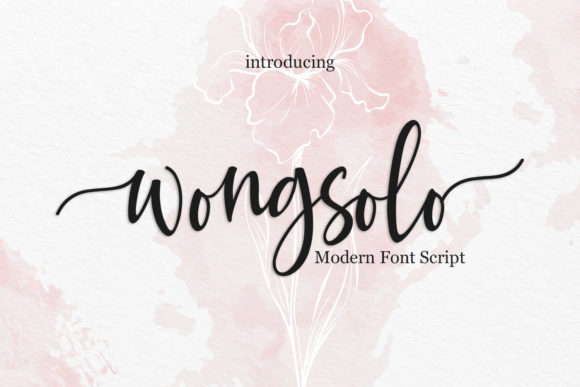
Prepare to be captivated by Wongsolo, a mesmerizing script font family that radiates an aura of romance and grace. This exceptional creation from the talented Belovestudio is specifically crafted to elevate the visual appeal of your wedding videos, invitations, and other heartfelt expressions.
Immerse yourself in the charm of Wongsolo's delicate strokes, which seamlessly intertwine to form a symphony of elegance. Watch in awe as your words transform into captivating works of art, enhanced by the font's varying baseline, smooth lines, and stunning alternates. Its graceful swashes add a touch of playful sophistication, enticing your viewers to linger on every letter.
With Wongsolo, you can effortlessly create visual masterpieces that capture the essence of your special day. Picture your wedding invitations adorned with the flowing beauty of Wongsolo, setting the tone for an unforgettable celebration. Enchant your guests with heartfelt thank-you cards, each one a testament to your gratitude and appreciation. Share your love story through captivating quotes, rendered in the exquisite artistry of Wongsolo's characters.
But Wongsolo's allure extends far beyond the realm of matrimony. Its versatility shines through in greeting cards, logos, business cards, and any creative endeavor that calls for a touch of handwritten elegance. Whether you're a seasoned designer or just starting your creative journey, Wongsolo is your steadfast companion, guiding you toward remarkable results.
Belovestudio, the creative force behind Wongsolo, has meticulously crafted this font to be PUA encoded, ensuring effortless access to a world of glyphs and swashes. This intuitive feature empowers you to unleash your creativity and explore the boundless possibilities of typographic expression. Experience the joy of crafting personalized designs that resonate with your unique vision and style.